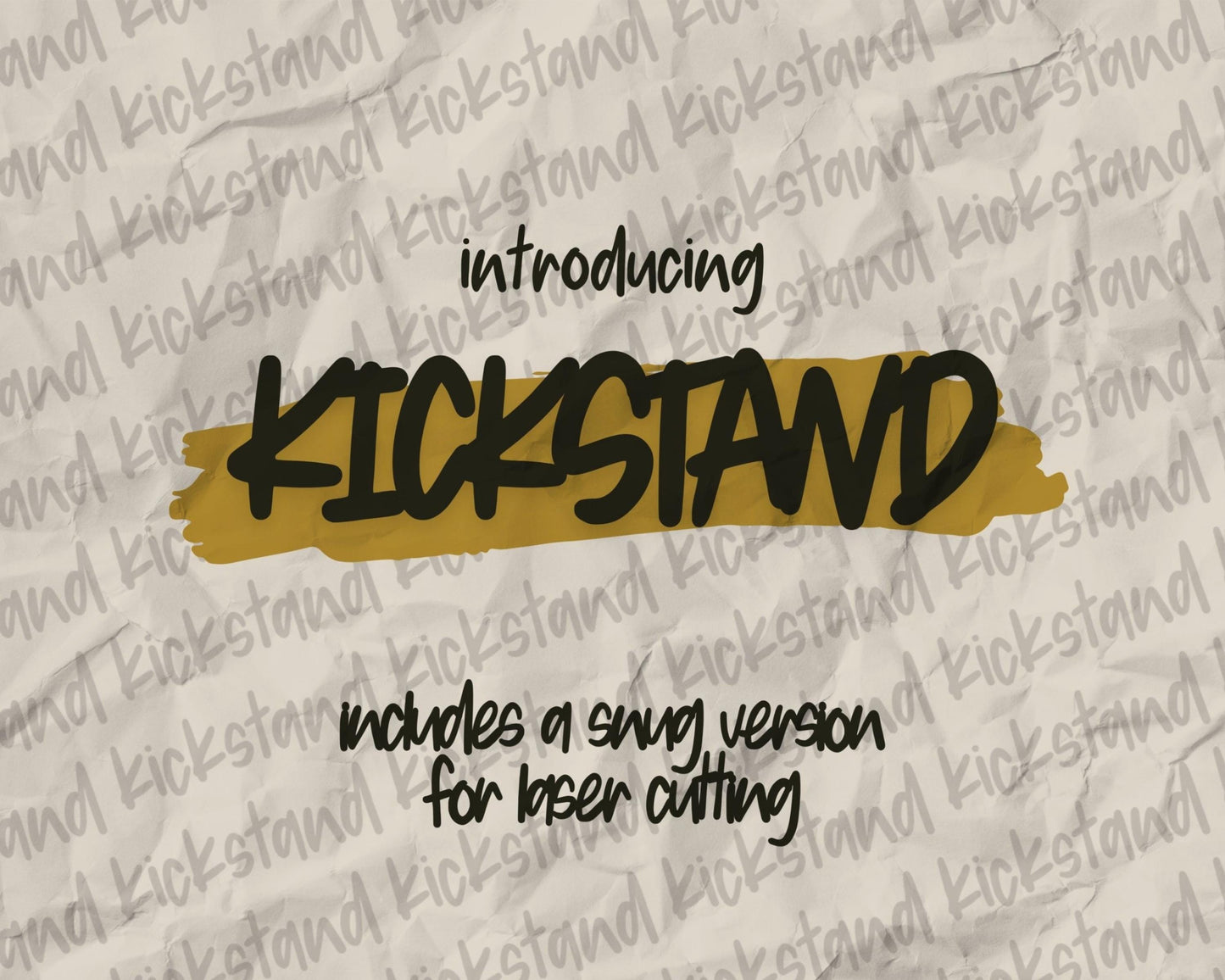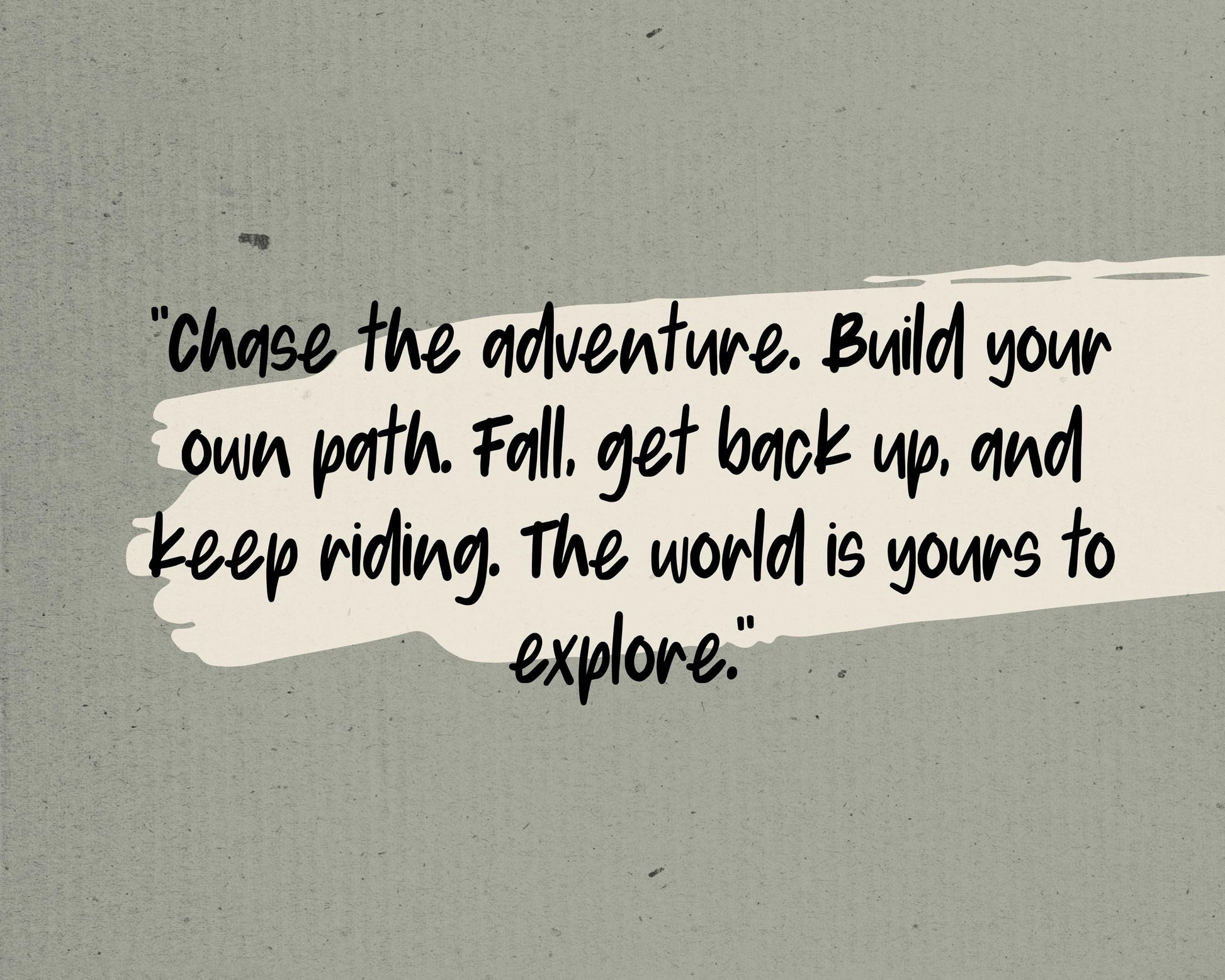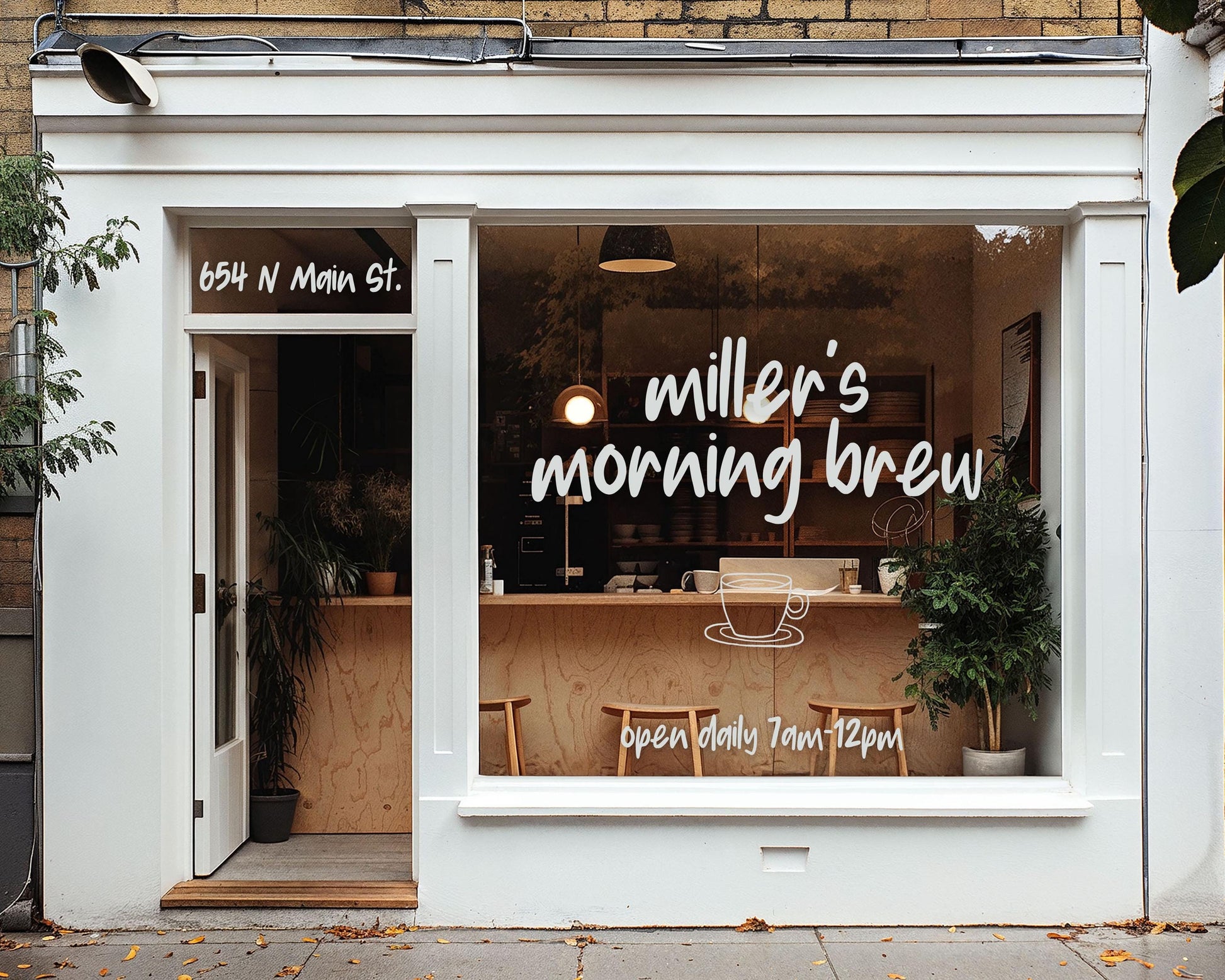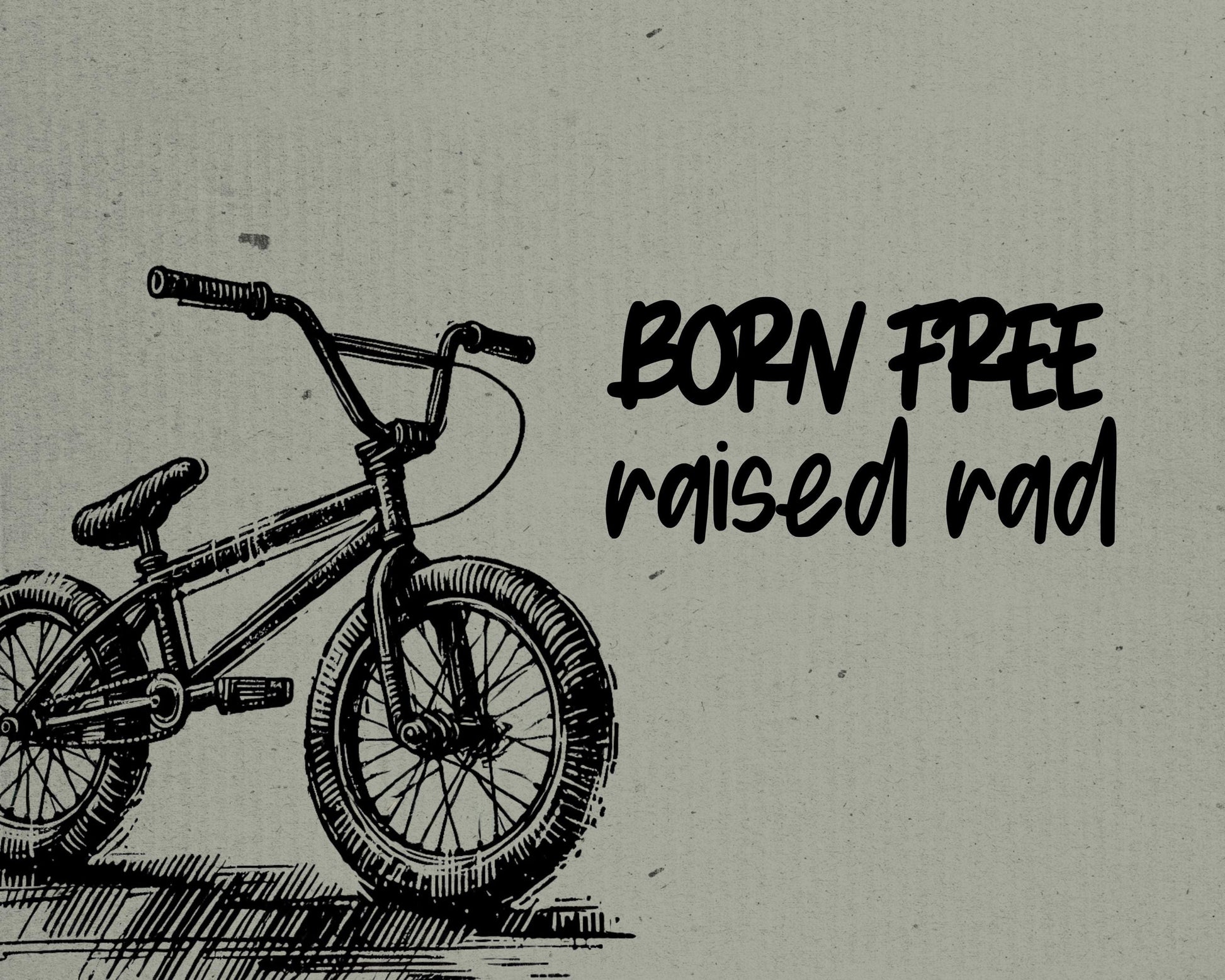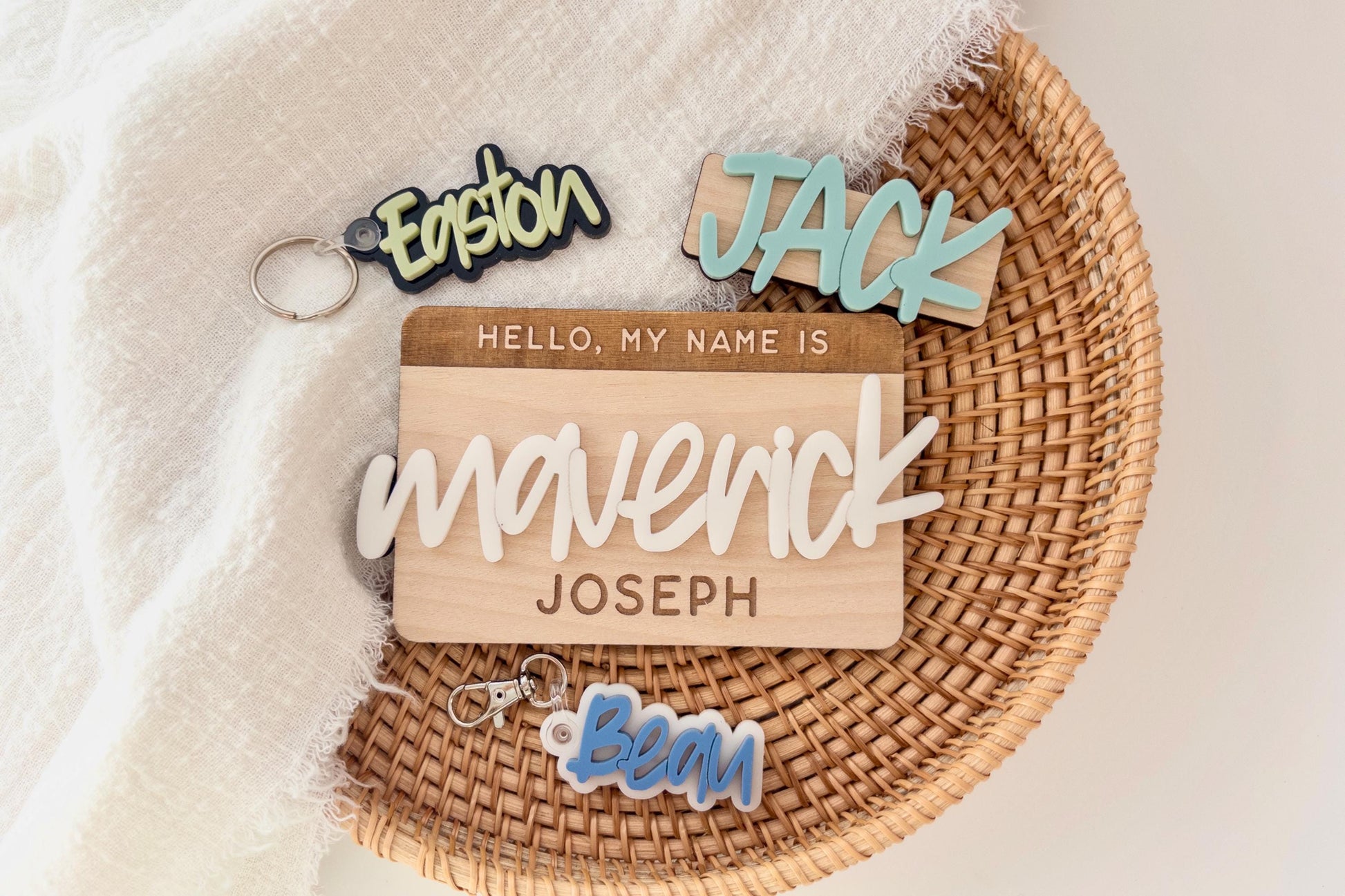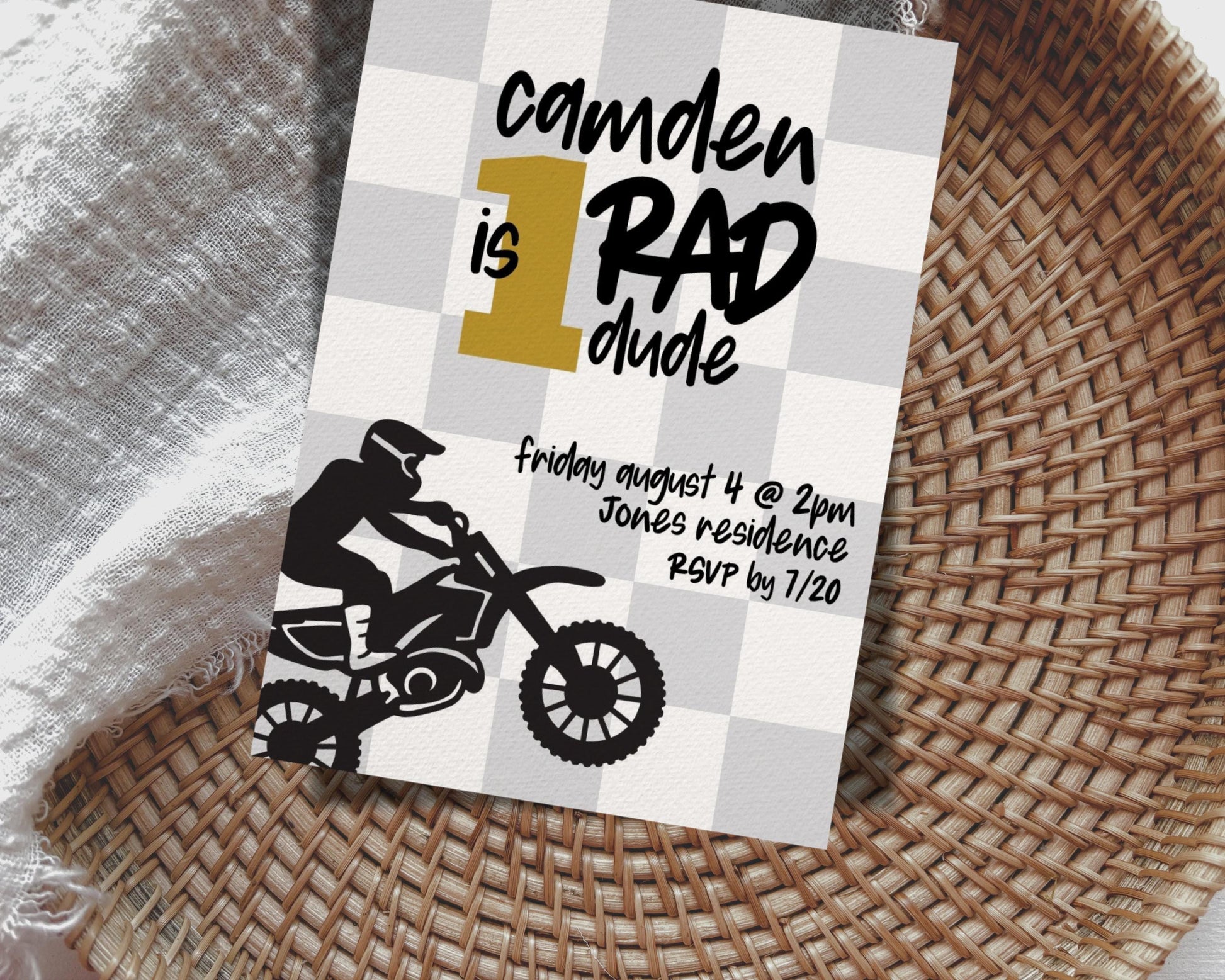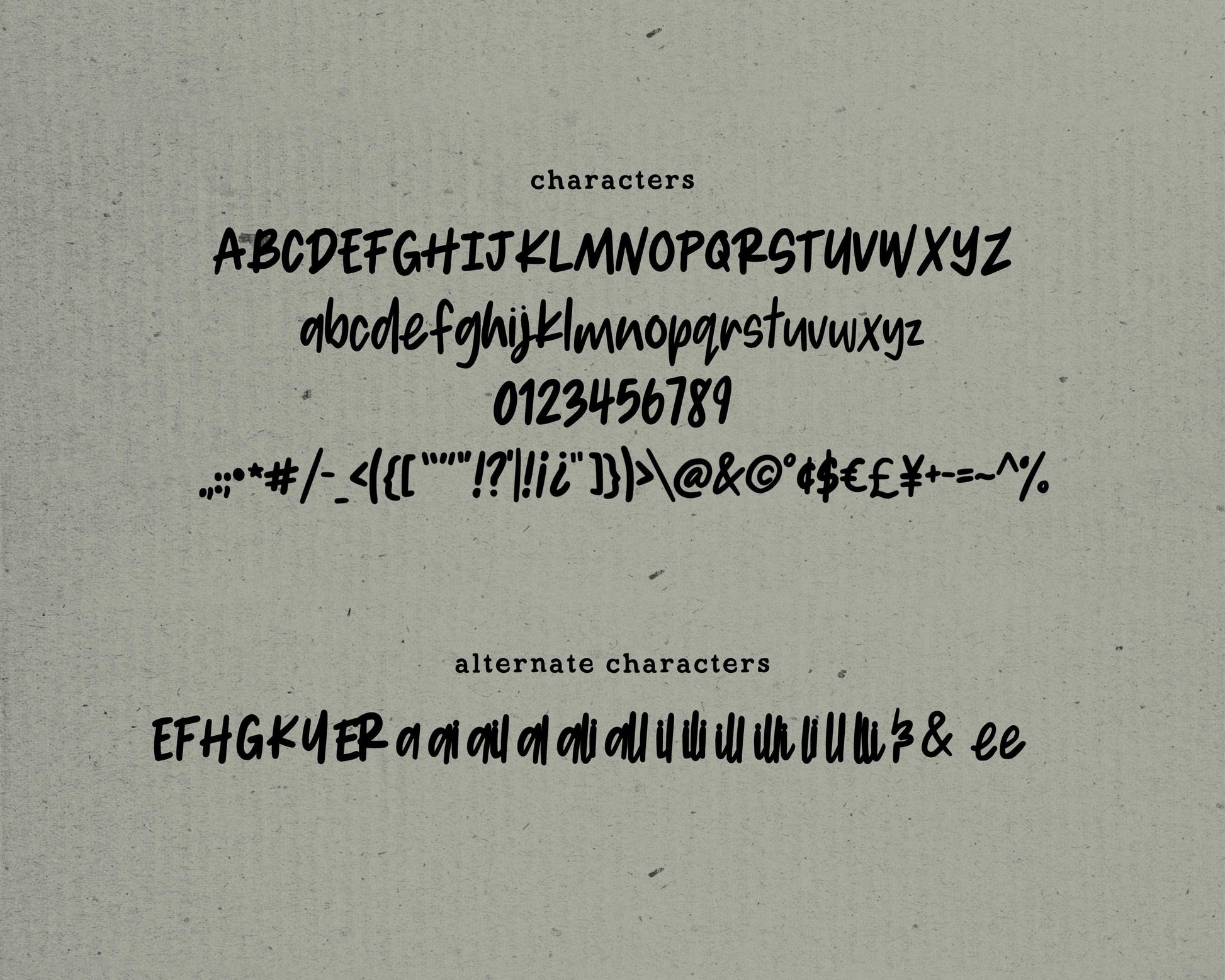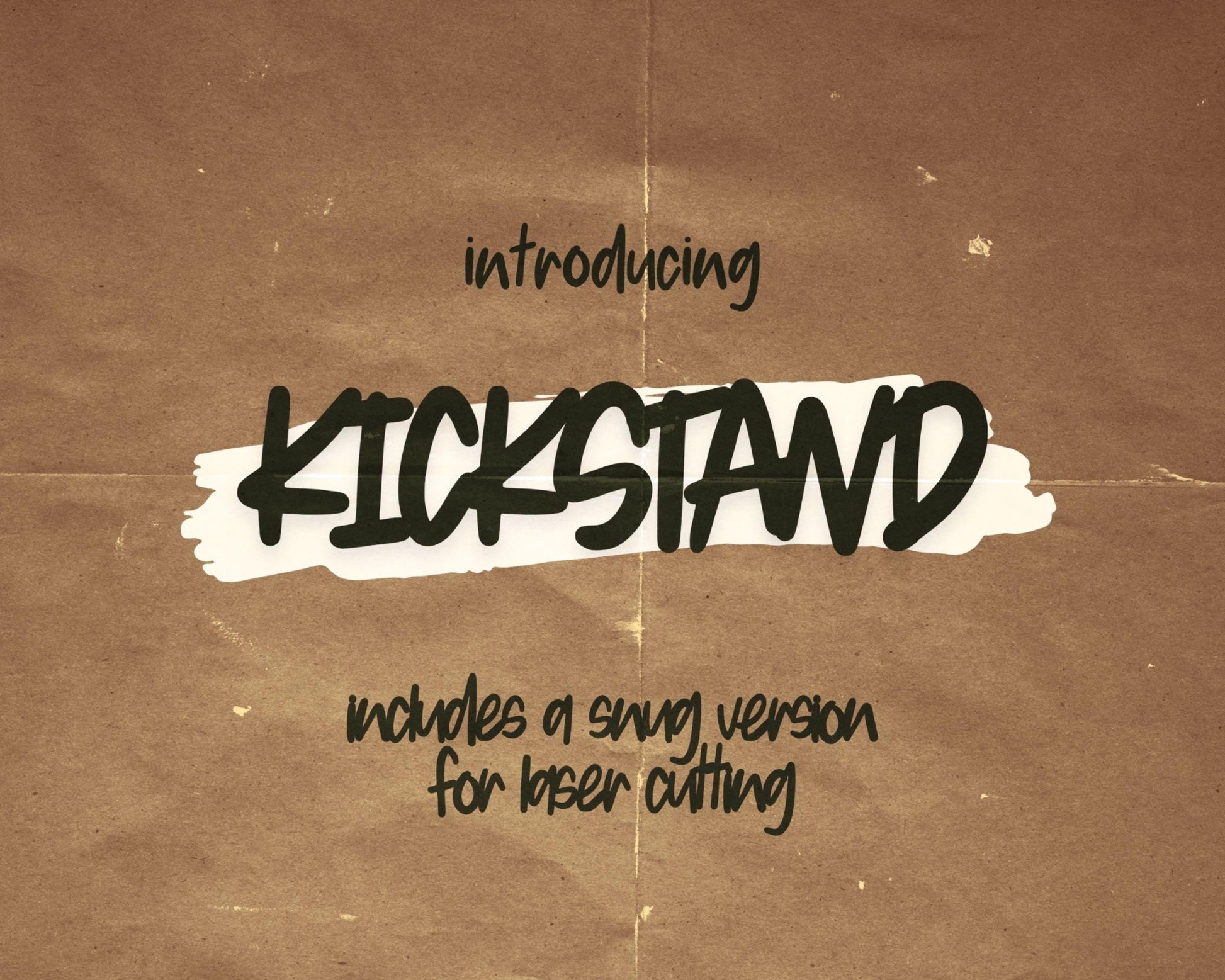
FONT handwritten block sans serif - laser ready hand lettered font, modern, hand lettering font, laser cut glowforge laser font KICKSTAND
introducing, Kickstand, a playful, hand-lettered, sans-serif font.
Kickstand
- full uppercase + lowercase characters, numbers
- symbols + punctuation
Kickstand Snug
- full uppercase + lowercase characters, numbers
- symbols + punctuation